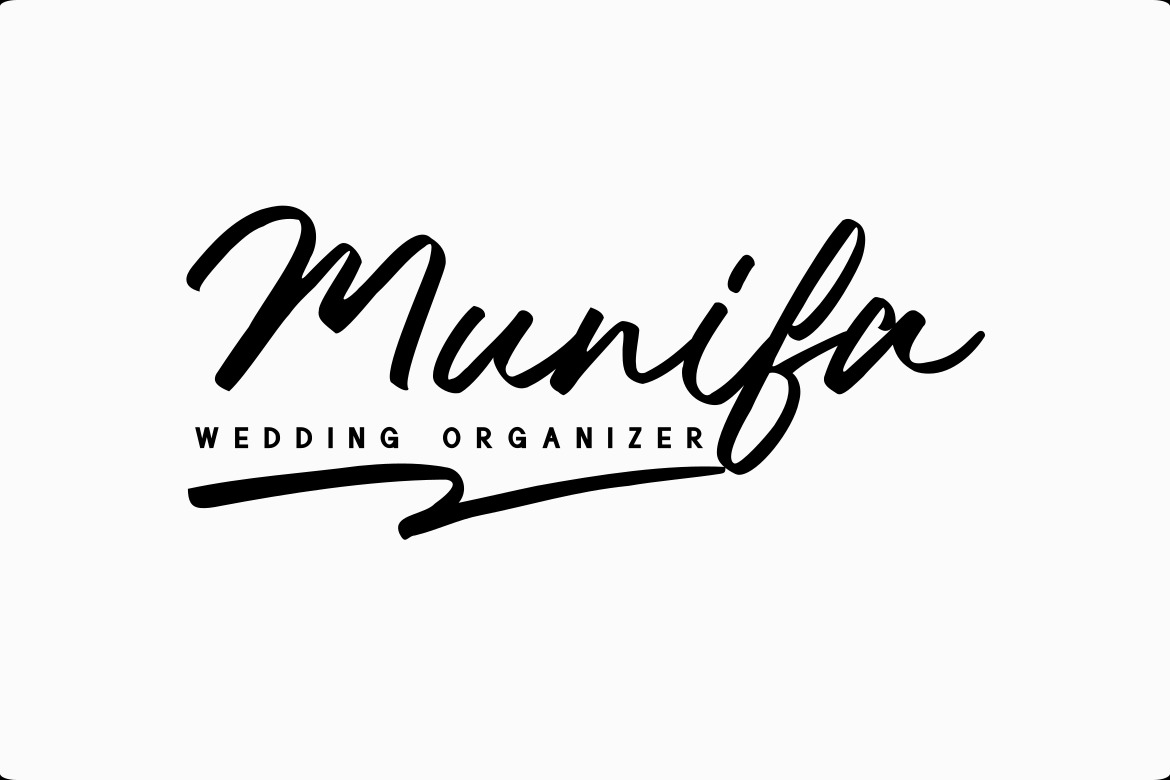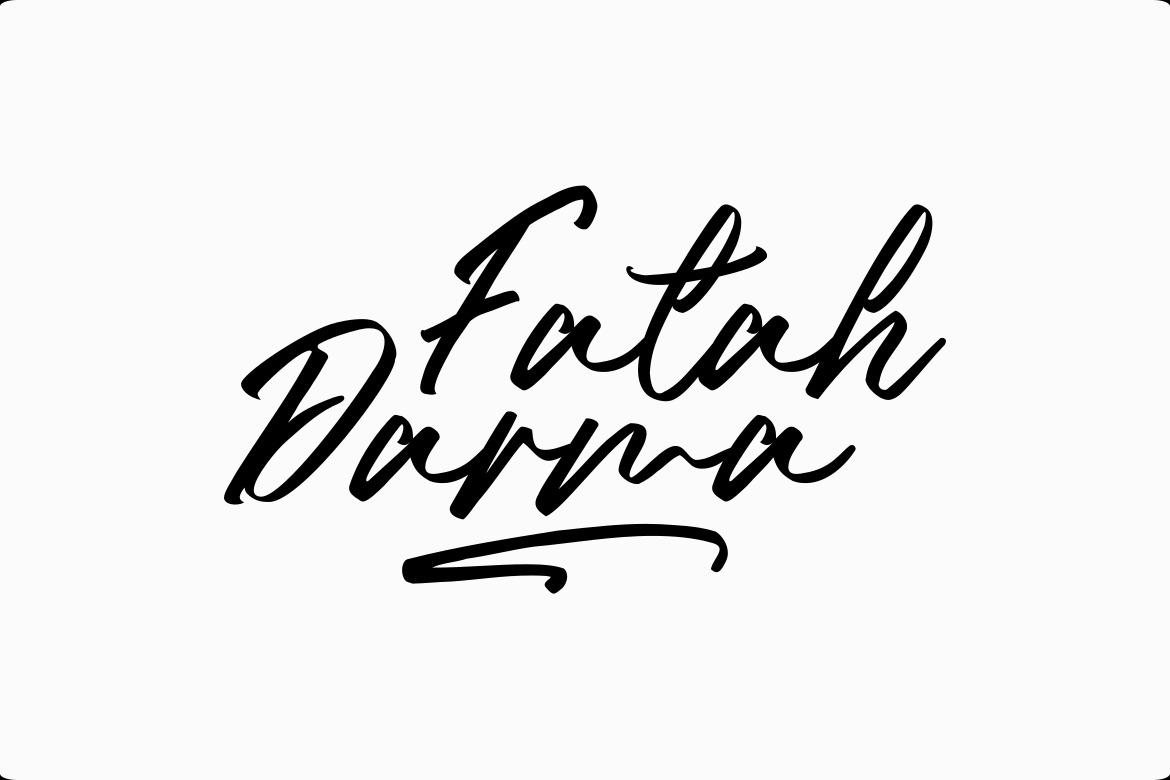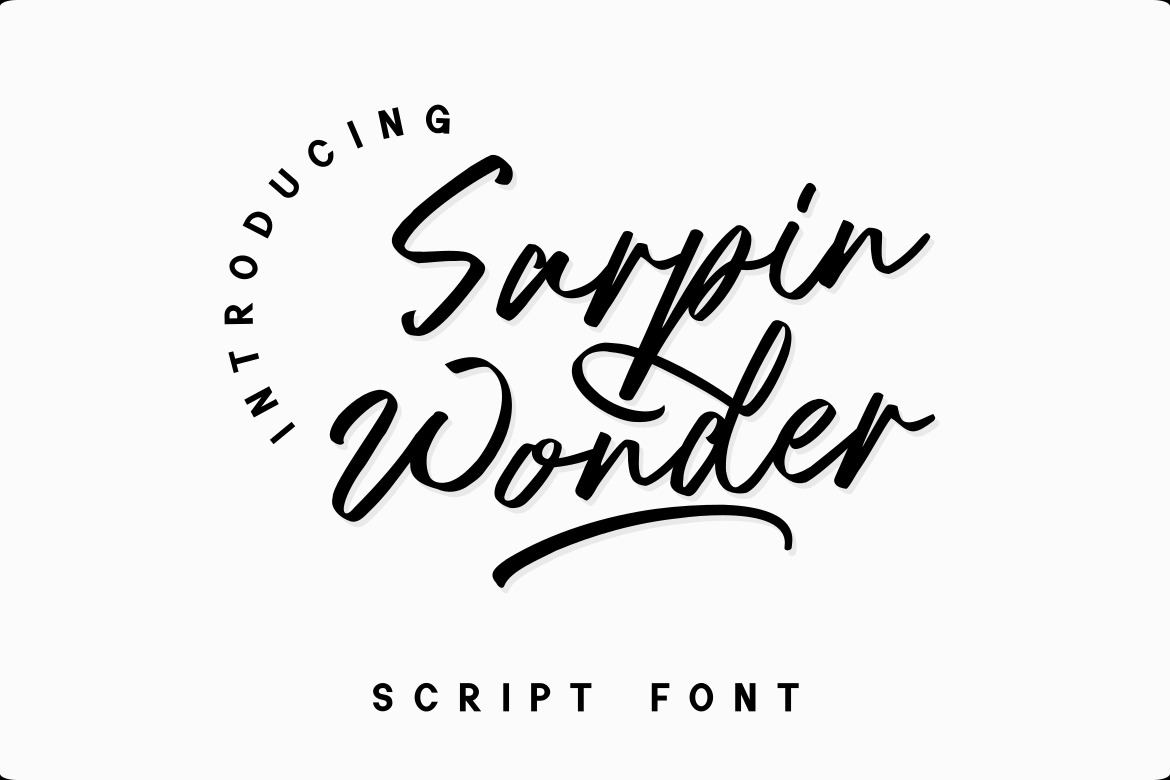
Sarpin Wonder Handwritten Font is a natural handwritten typeface, this font Is perfect for logos, invitations, stationery, wedding designs, social media posts, advertisements, product packaging, product designs, label, photography, watermark, special events, or anything.